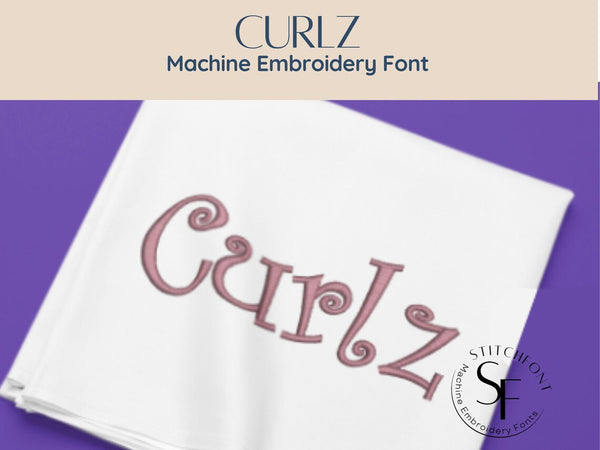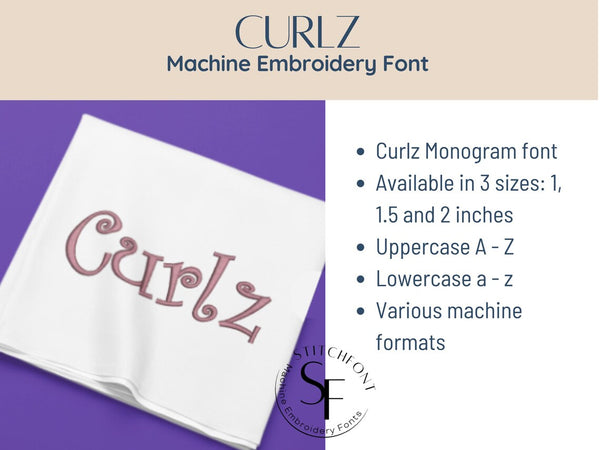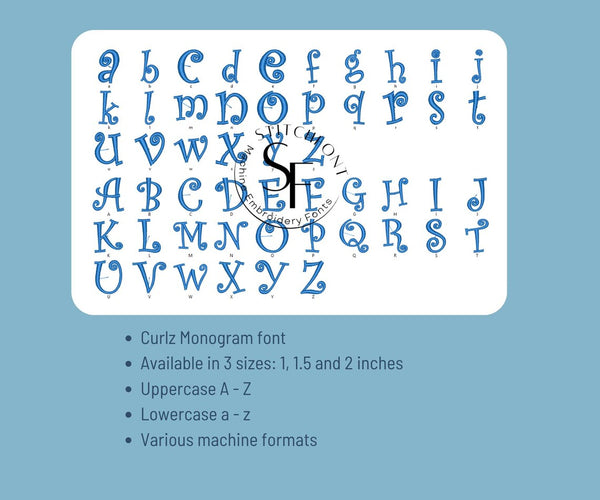
🎀 Curlz Embroidery Font – Whimsical & Fun! 🎀
Add a playful twist to your next embroidery project with the Curlz Font! This delightfully curly satin stitch font brings charm and personality to every letter, perfect for children’s items, party decor, gifts, and more.
✨ Features:
* Sizes: 1", 1.5", and 2"
* Satin stitch for a smooth, professional finish
* Includes uppercase and lowercase letters